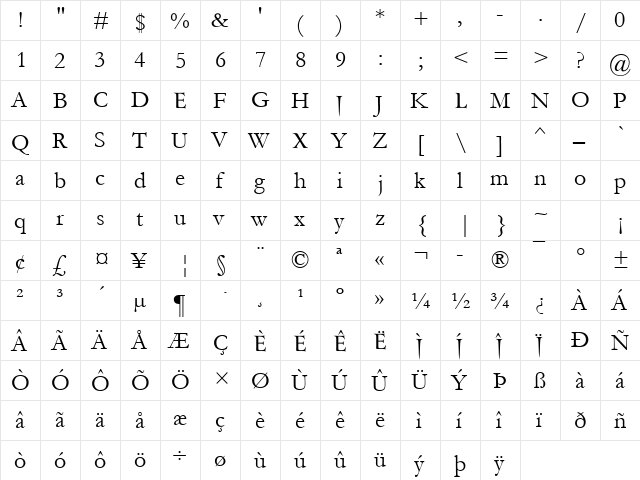
MYST Regular
| Designer | Claude Garamond |
MYST offers clean, dependable letterforms without strong stylistic allegiance, making it a practical choice for designers who need flexibility.